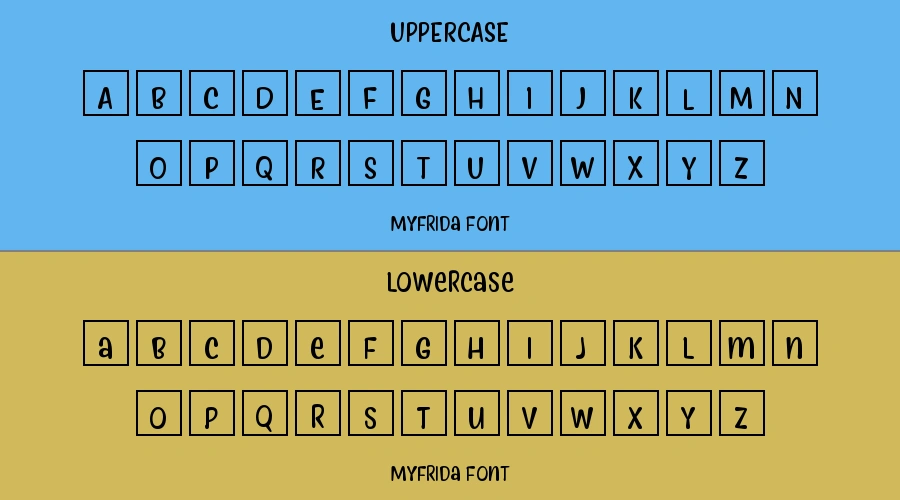
About Myfrida Font
Myfrida Font embodies typographic excellence through its masterful combination of elegant proportions and traditional values. Created for magazine layout, this typeface delivers exceptional versatility and cultural relevance across all applications. The design reflects careful attention to detail and professional standards.
Advanced capabilities include distinctive harmonic curves and versatile expert sets, giving designers creative control. When used in running text, Myfrida Font exhibits remarkable small cap rendering. The harmonious balance between counter shape and brand personality sets this typeface apart.